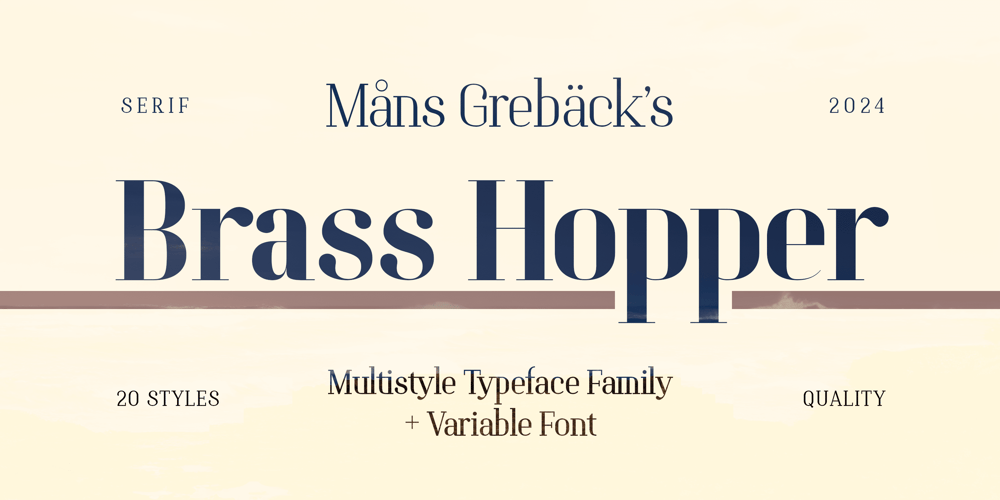
Brass Hopper
Brass Hopper font
Brass Hopper Font Family was designed by Måns Grebäck and published by Mans Greback. Brass Hopper contains 20 styles and family package options. Brass Hopper is a serif font that embodies structual design.A modern geometrical typeface, Brass Hopper is characterized by hard edges. The strict shapes of each letterform lends a sense of stability, making it ideal for art exhibitions and architectural projects. Its modern aesthetic merges with a touch of formality, creating a unique blend that stands out in any experimental context.The font is built with advanced OpenType functionality and guaranteed top-notch quality, containing stylistic and contextual alternates, ligatures and more automatic and manual features; all to give you full control and customizability.It has extensive lingual support, covering all Latin-based languages, from North Europa to South Africa, from America to South-East Asia. It contains all characters and symbols you’ll ever need, including all punctuation and numbers.Designed by Mans Greback with a structural and experimental approach, Brass Hopper offers a distinctive style for those seeking a typeface that is both formal and innovative.